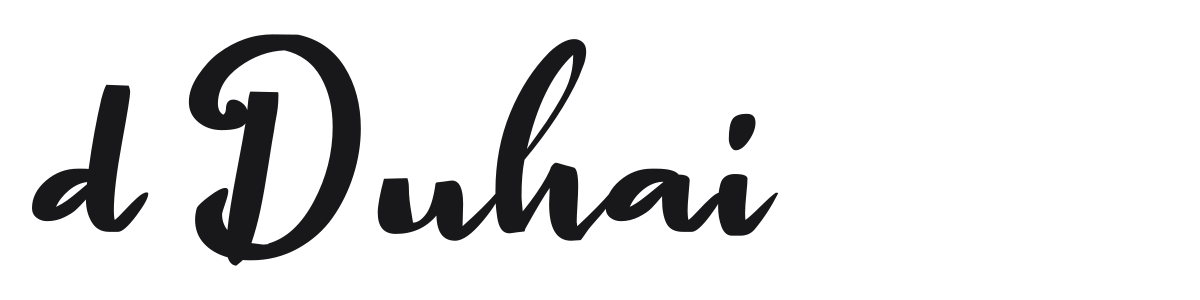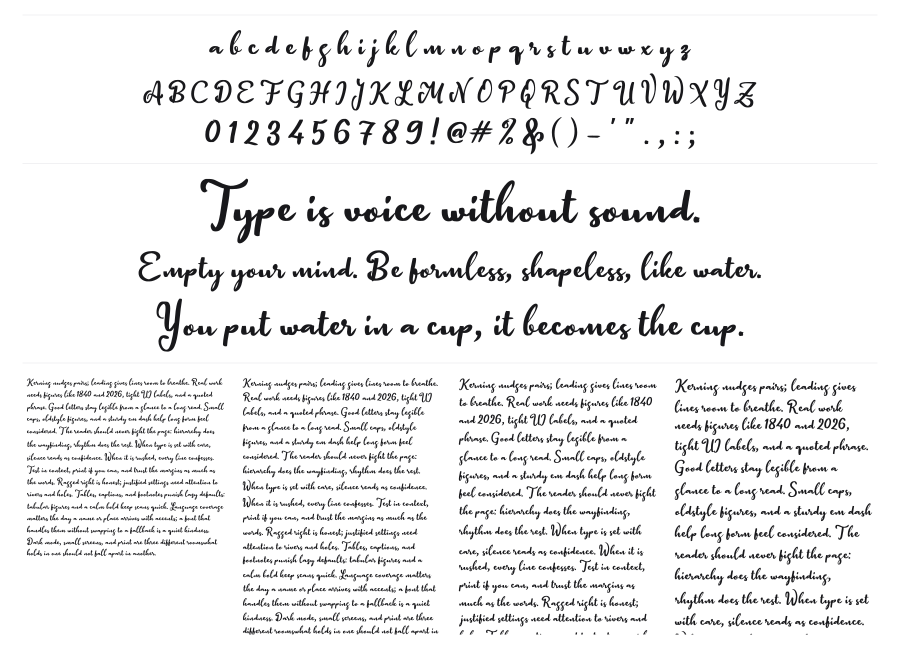
d Duhai
d DuhaiLicense is a bold contemporary brush script with confident, flowing strokes and strong thick-to-thin contrast. The letters connect naturally with looping ascenders and sweeping descenders that give it a lively, hand-lettered feel. It carries the energy of modern brush calligraphy without feeling overdone.